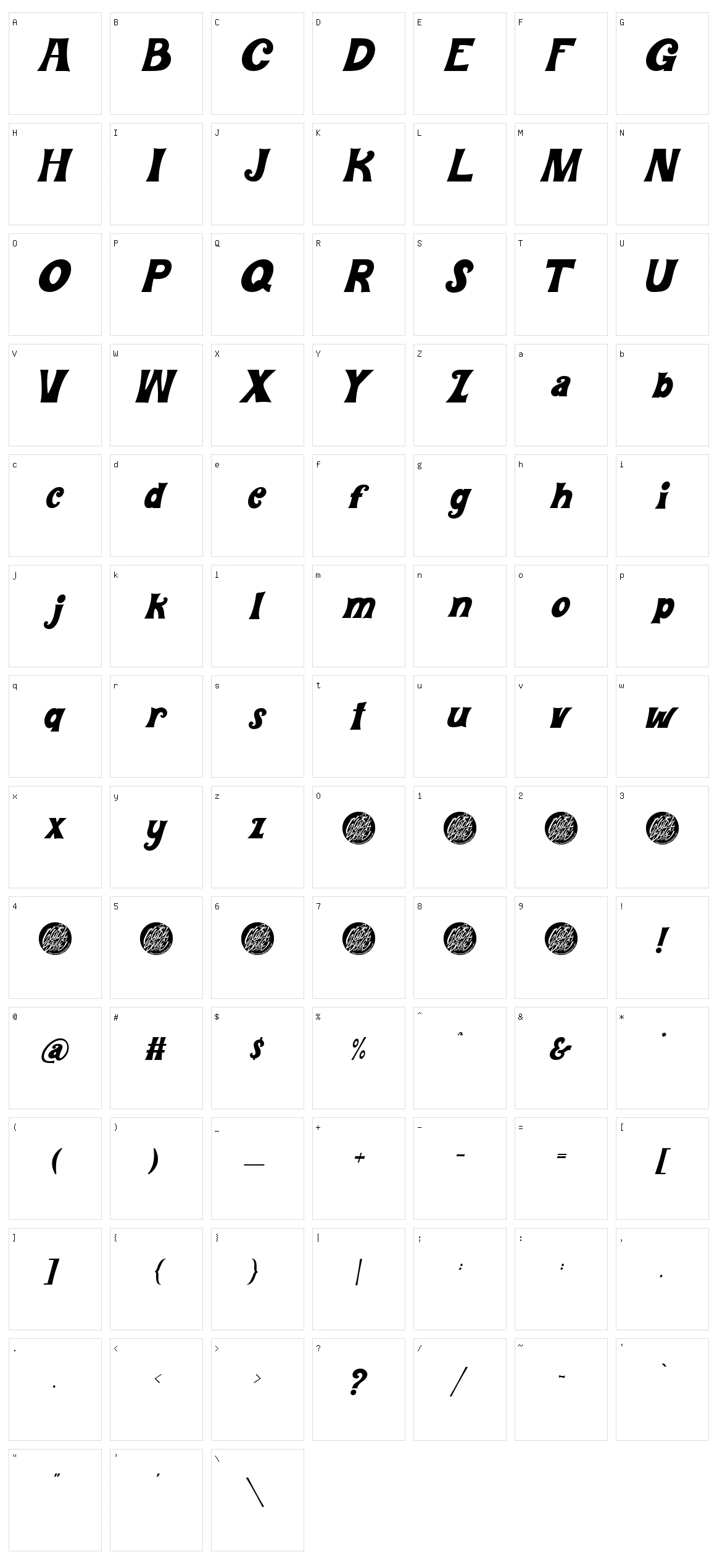
The free font Gleamore is carefully designed by Glyphstyle, showcasing a thoughtful balance of creativity and usability and falls under the Groovy font style. When you download the ZIP file, it contains only 159.24 KB of font files, making it lightweight and quick to download. Please review the license details below to understand permitted usage and distribution rights. If license information is not available, we recommend using this font for personal projects only or contacting the author directly for commercial usage permissions.